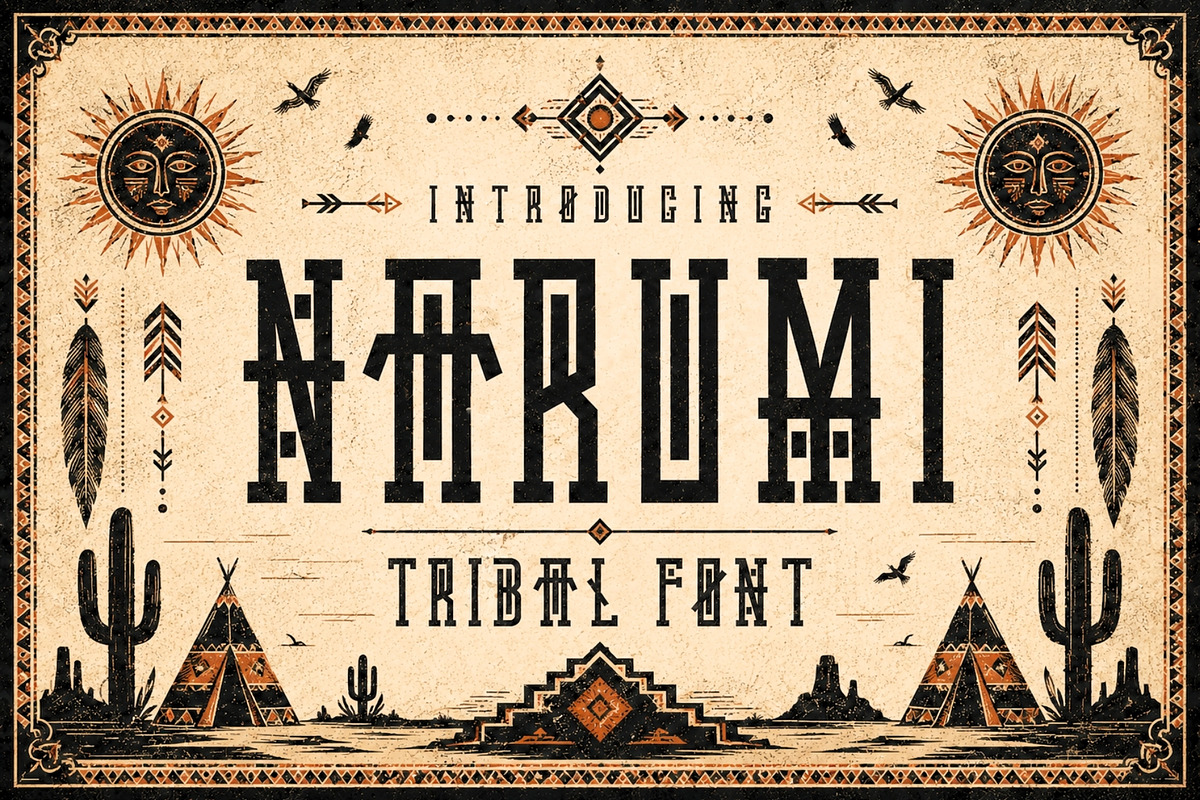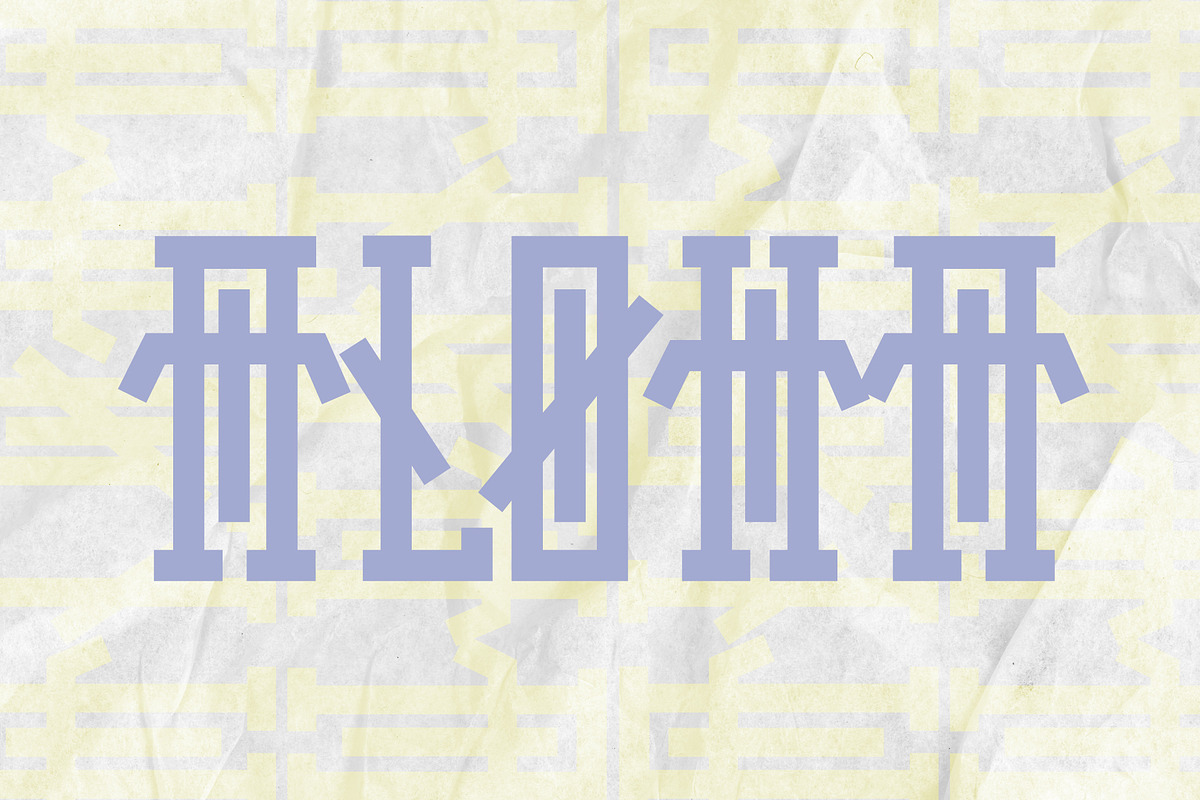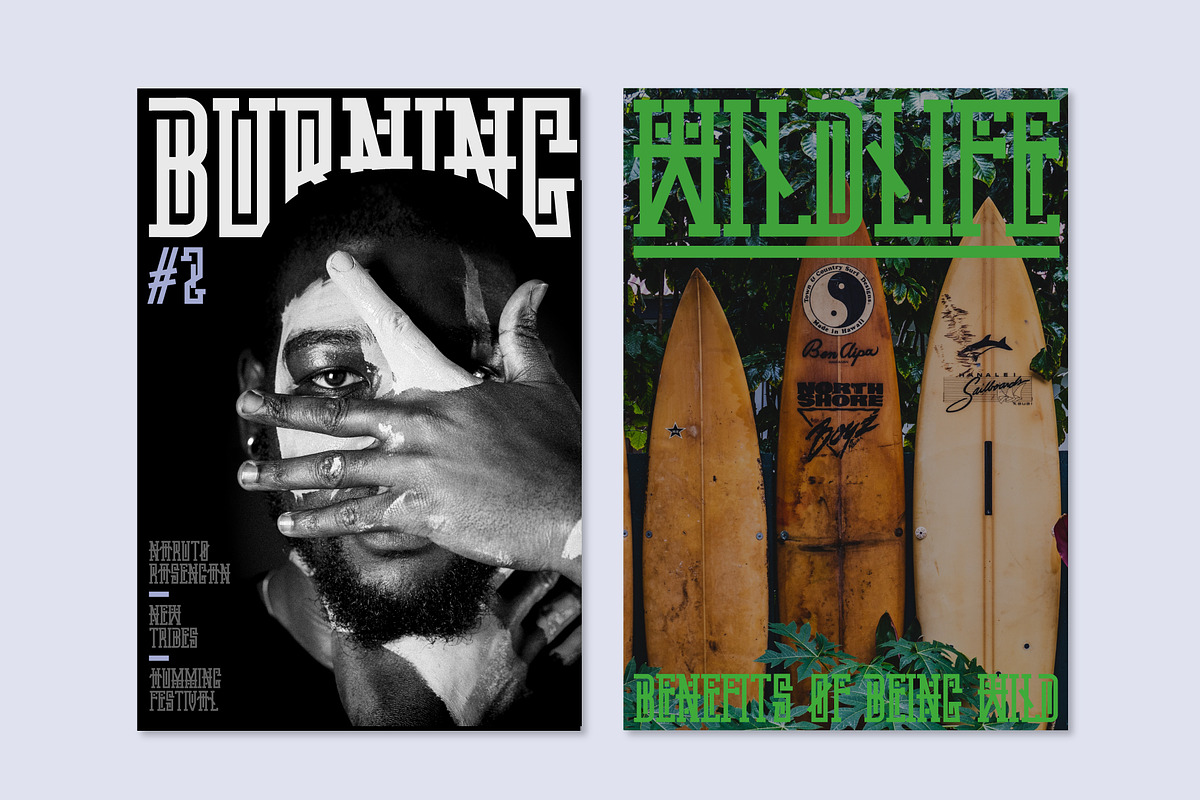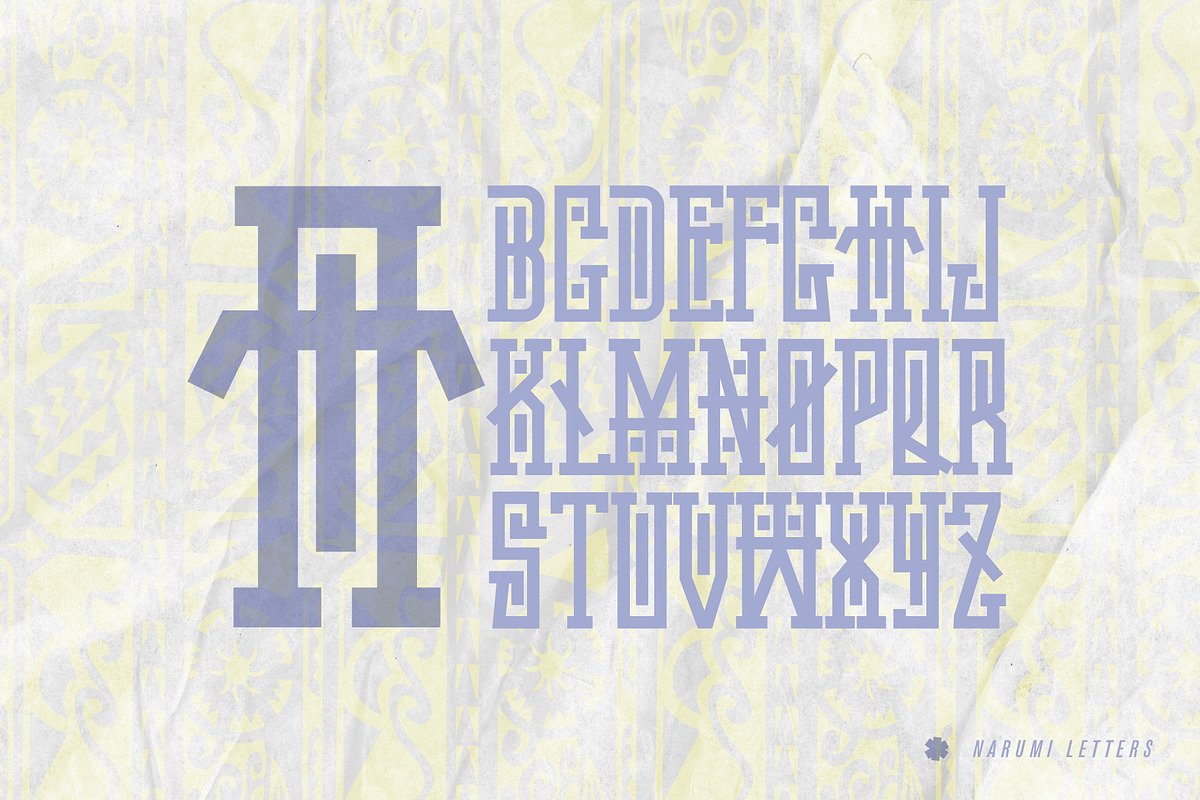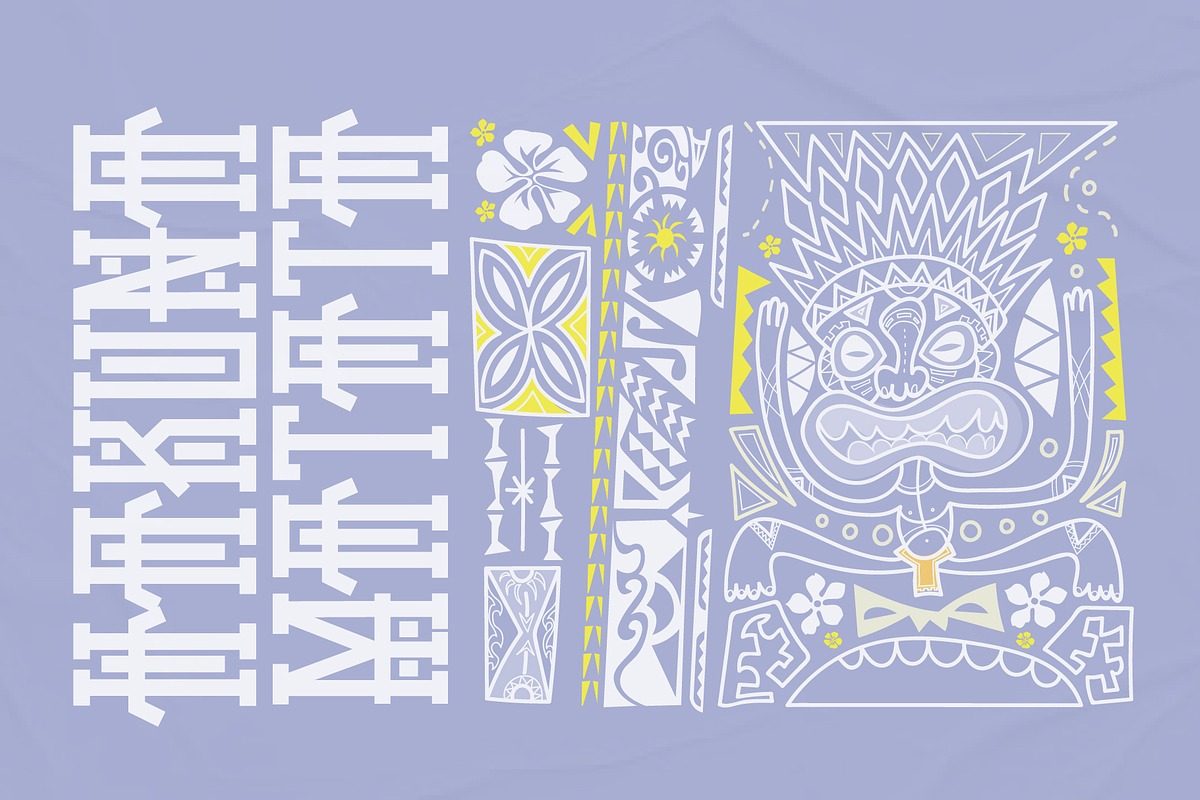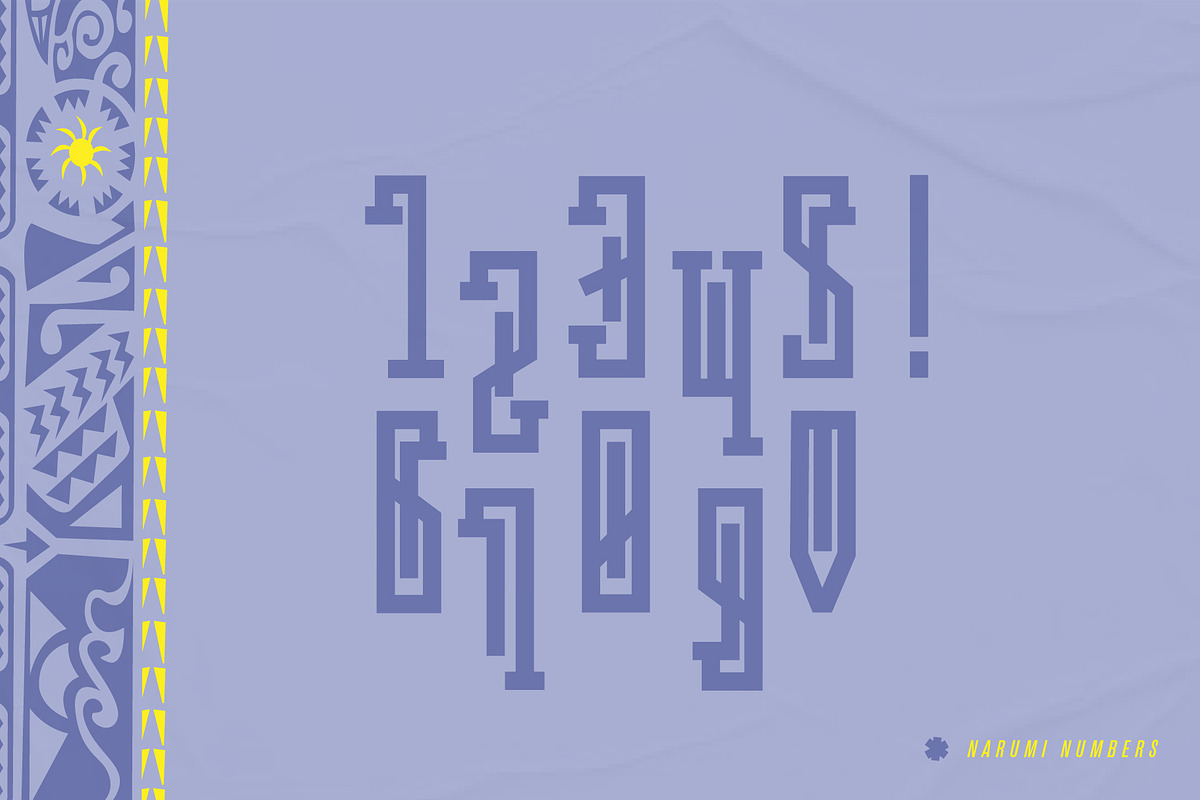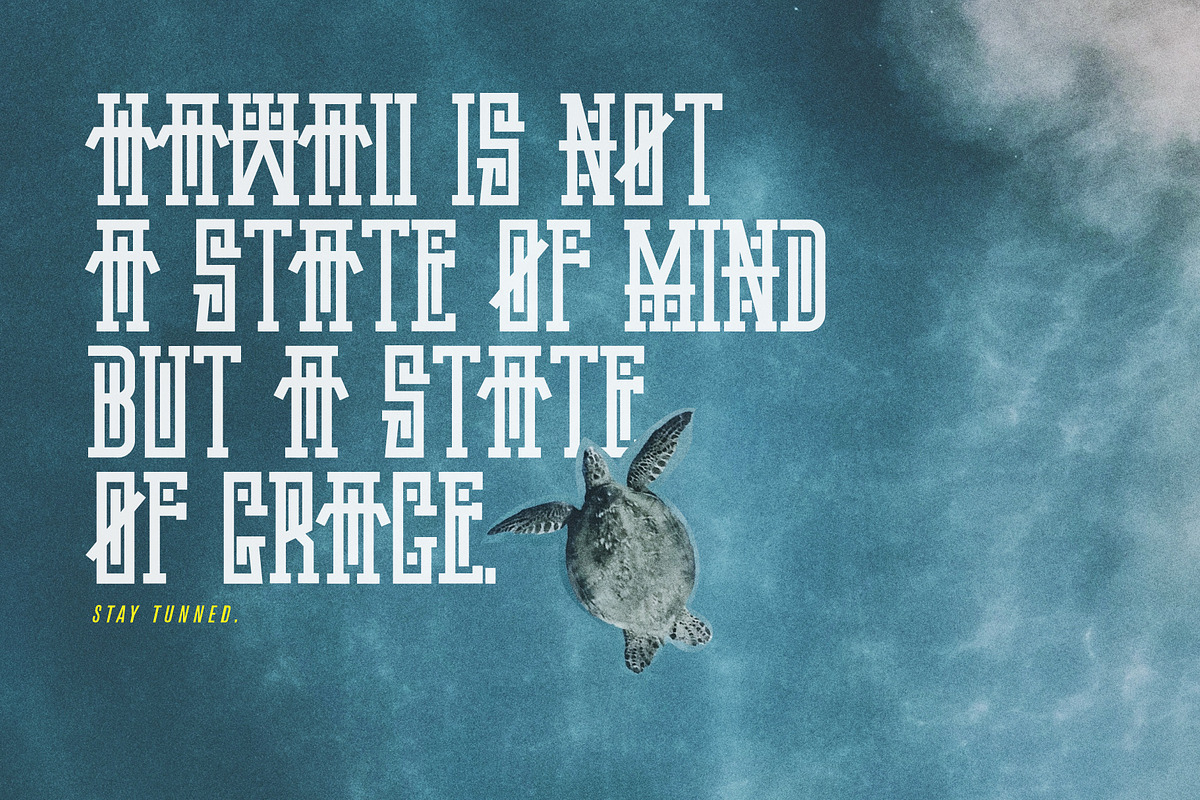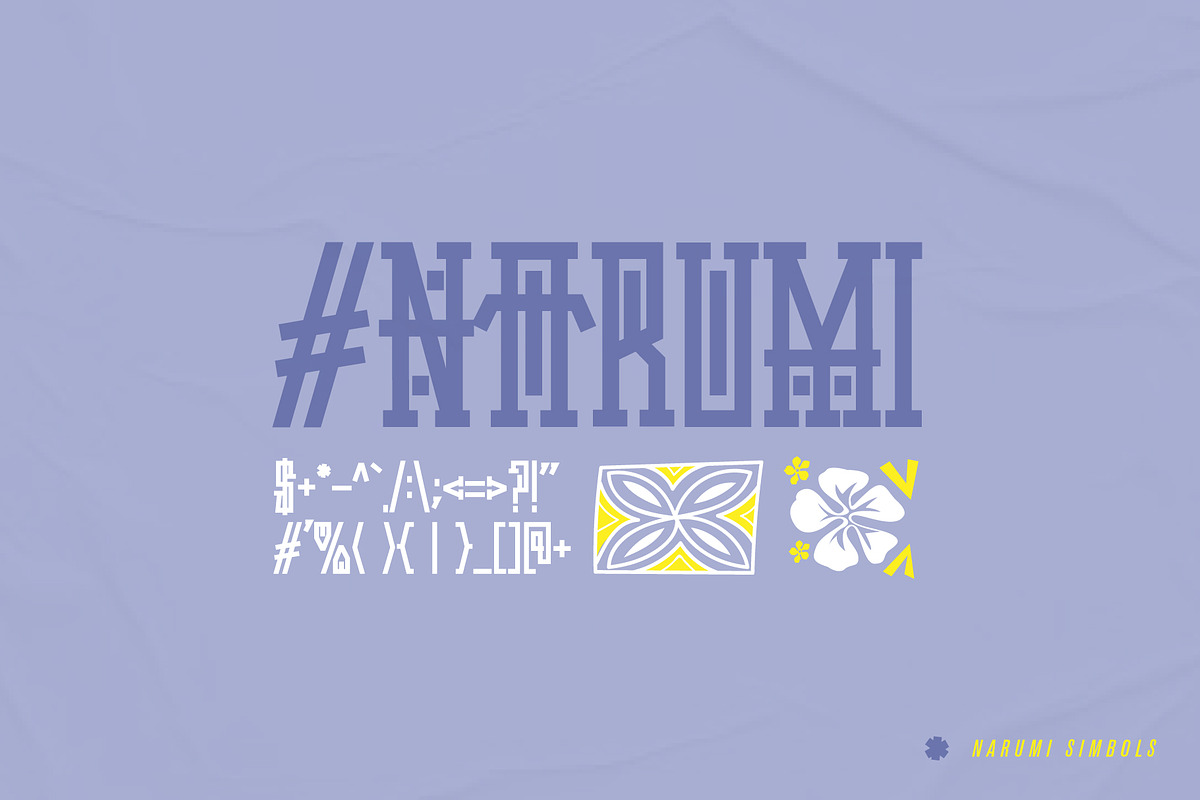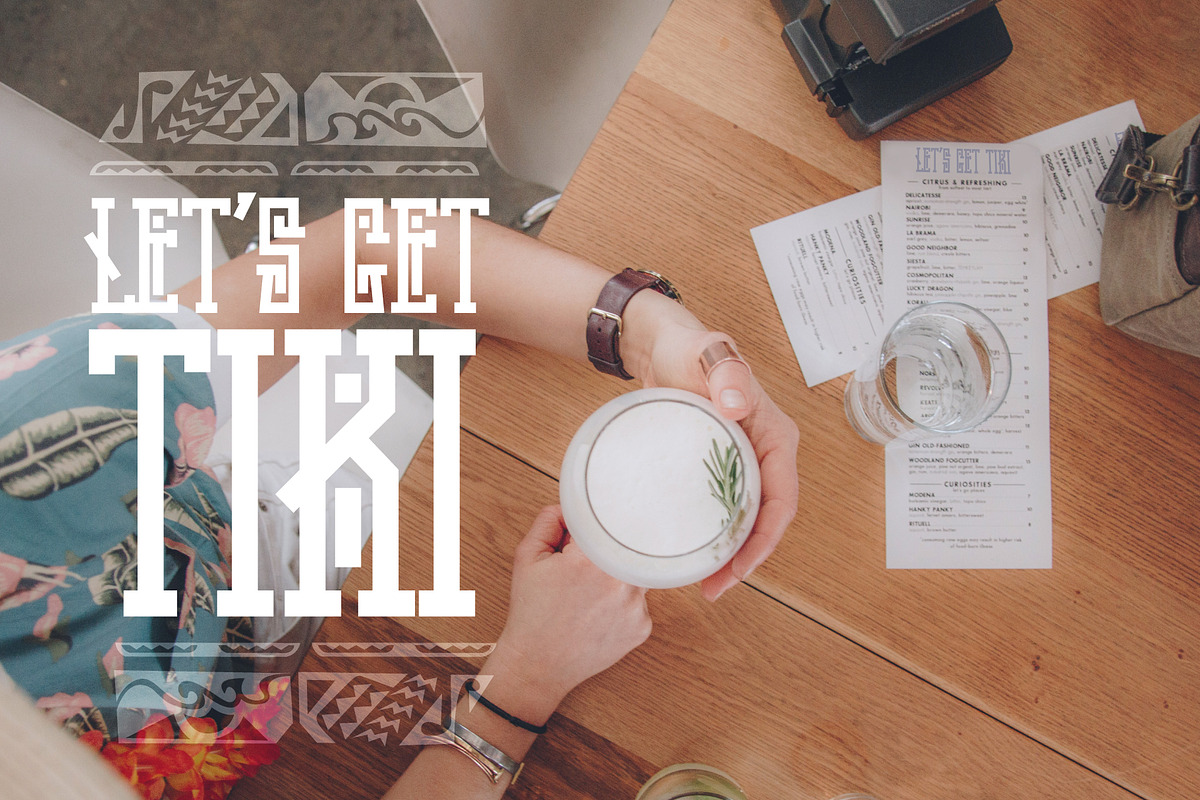
Narumi - Abstract Tribal Display
Narumi is an experimental ethnic font. At first glance it's looks like a language from another galaxy, but as you focus your attention the wording becomes clear. This distinctive and memorable typeface is narrow and sharp. It's ideal to be used as a display typeface for things like posters, banners, covers, stationary, packaging, editorials, and more. All the letters are uniquely drawn, making Narumi perfect for the natural theme, folk, children, adventure, tribal, and social movement.